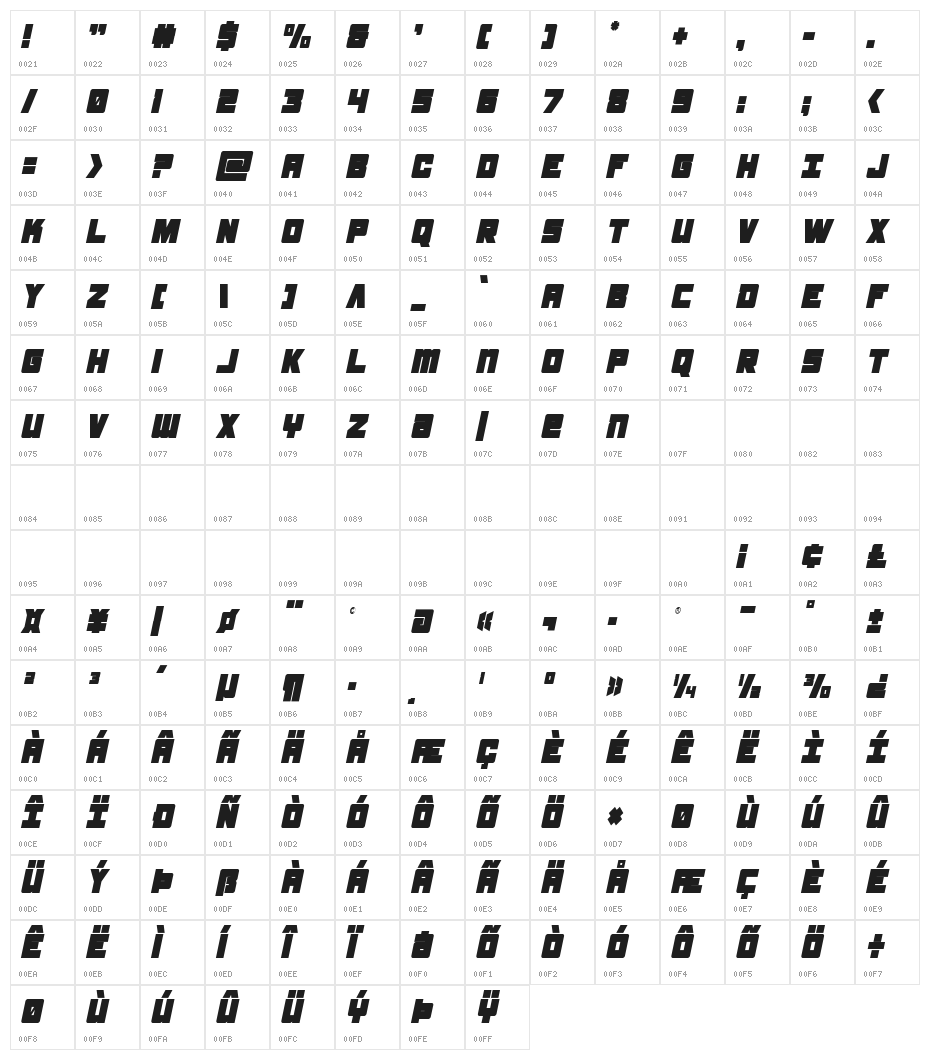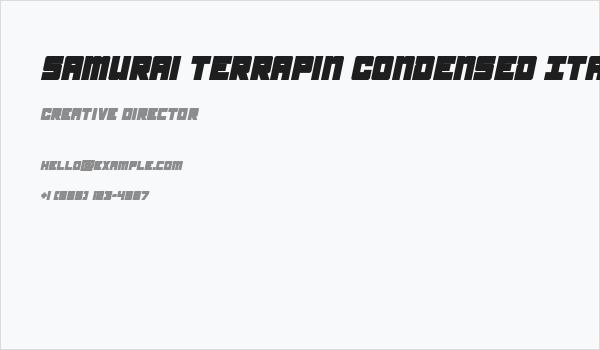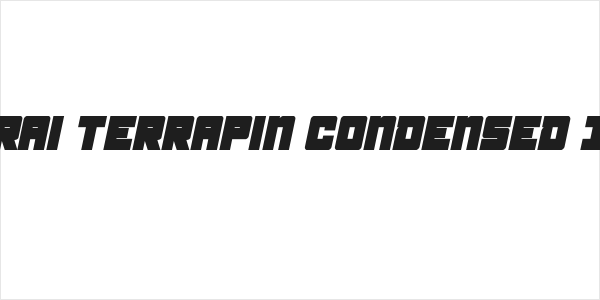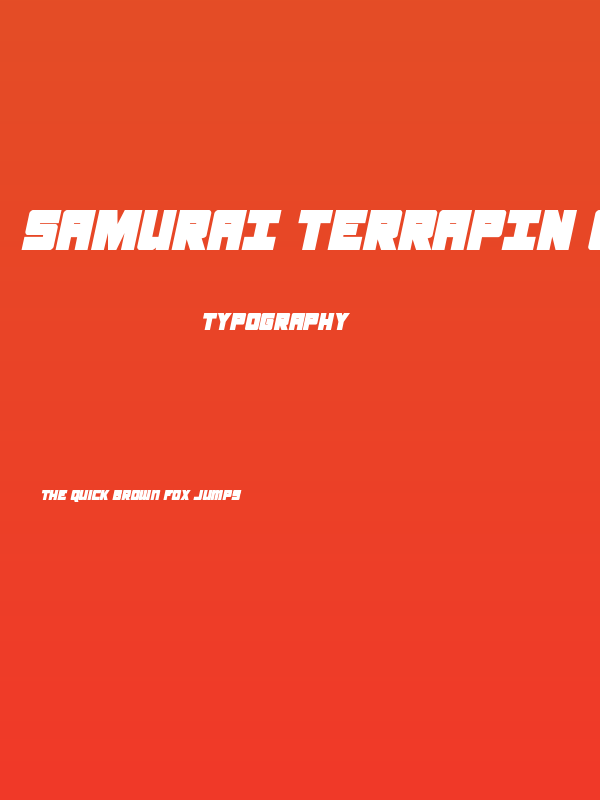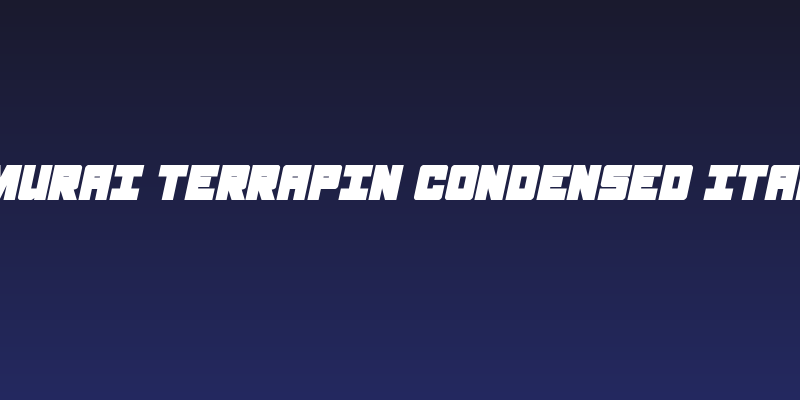
Samurai Terrapin Condensed Italic Font
Samurai Terrapin Condensed Italic Description
This font features a bold, condensed style with a distinct italic slant, giving it a dynamic and energetic appearance. The characters are blocky and robust, with sharp angles and a futuristic feel. The uppercase and lowercase letters maintain a consistent width, contributing to a uniform look. The numbers and special characters follow the same design principles, ensuring cohesion across all glyphs. The font's heavy weight and condensed form make it ideal for impactful headlines and titles. Its unique style is suitable for projects that require a modern and edgy aesthetic.
| Proposed Projects | Ideal for sports branding, video game titles, posters, and dynamic advertising campaigns. |